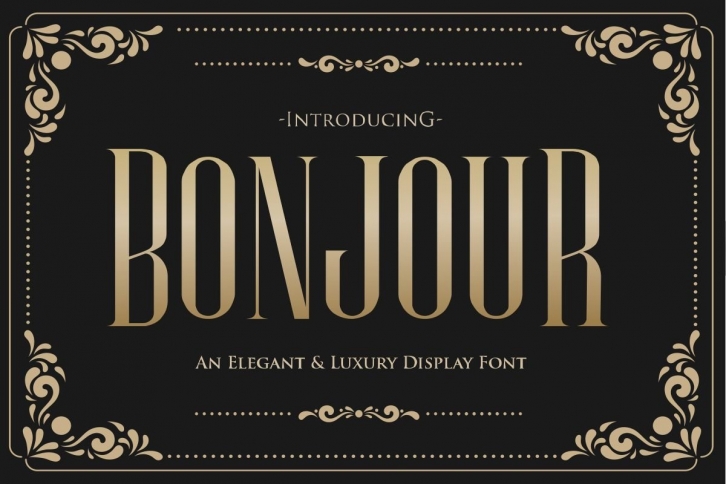
Bonjour is a trendy and unique font with an authentic style. It was designed by Gilar Studio and it's a great choice for creative people who need such a font. It was released on June 25, 2020 and the file size is 4.21 MB. Bonjour will add an organic vibe to any design idea!